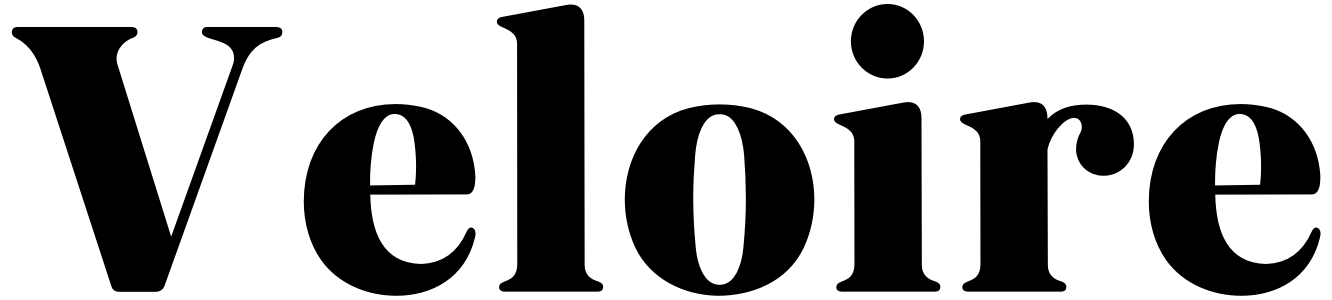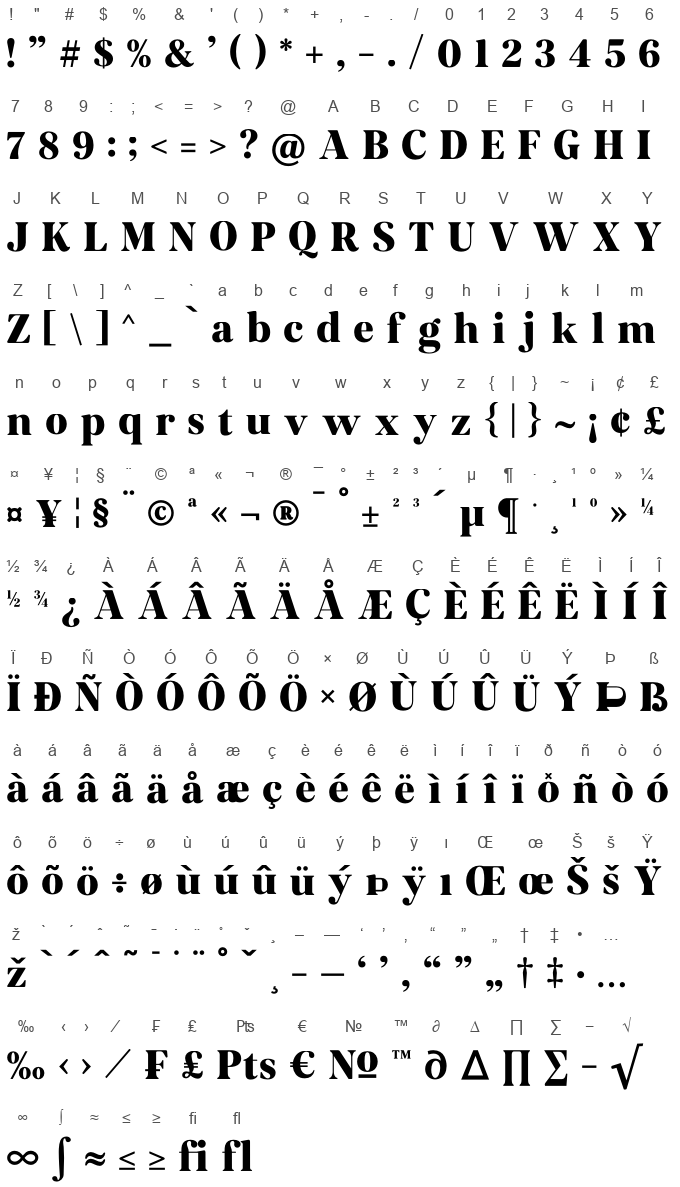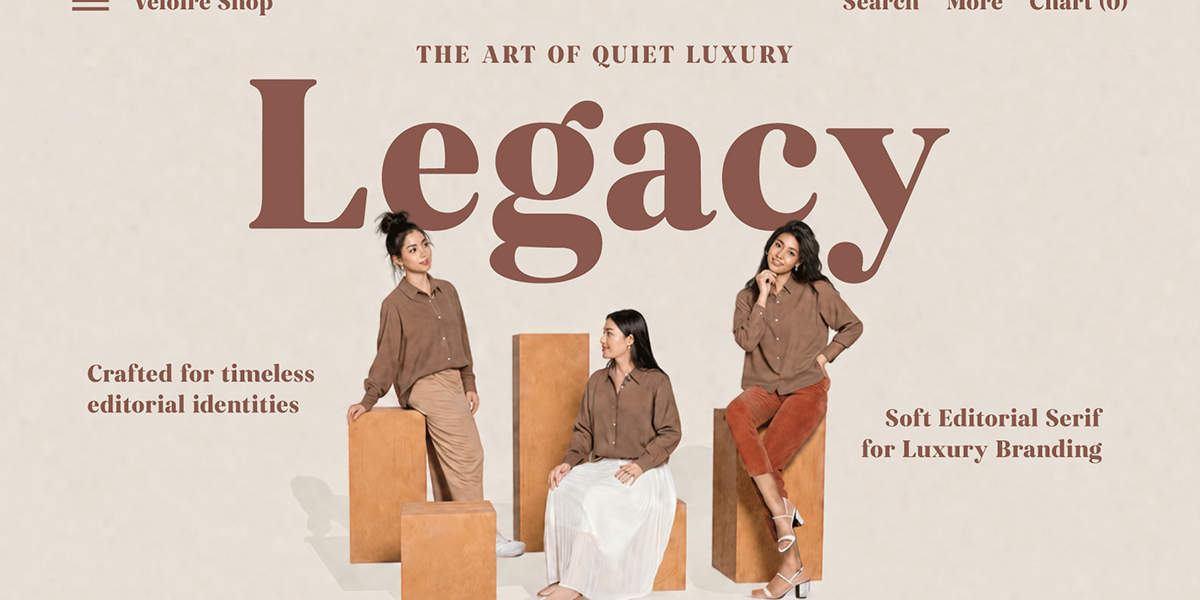
Veloire is a refined soft editorial serif typeface that blends timeless elegance with a modern, approachable character. Designed for brands that value sophistication and authenticity, Veloire brings effortless luxury to every design, from premium branding to editorial layouts.
Veloire